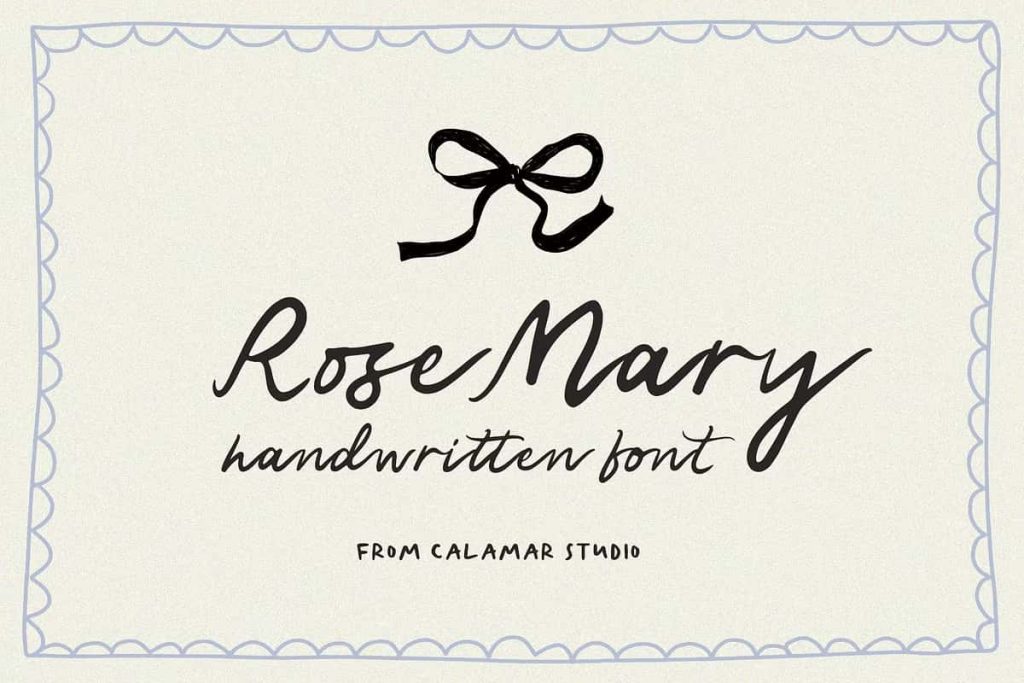
Rose Mary Handwritten Wedding Font
Rose Mary is a charming handwritten font designed to bring elegance, warmth, and personality to modern design projects. Introduced by Calamar Studio, this beautiful typeface captures the natural flow of handwritten lettering while maintaining a stylish and contemporary appearance. Its casual yet refined style makes it an ideal choice for wedding invitations, romantic branding, and creative typography projects.
The font reflects the growing trend of personal and expressive typography within wedding and lifestyle design. With its smooth strokes and naturally flowing letterforms, Rose Mary delivers the perfect balance between sophistication and casual charm. Designers looking for typography that feels genuine and heartfelt will find Rose Mary to be an excellent addition to their creative toolkit.
As the 2024–2025 wedding season approaches, many designers and couples are searching for fonts that communicate romance and individuality. Rose Mary answers that demand with a design that feels intimate, elegant, and visually captivating.
A Perfect Font for the 2024–2025 Wedding Season
Wedding design continues to evolve each year, and typography plays a central role in shaping the overall visual atmosphere of invitations and event materials. Rose Mary was created specifically to match the modern aesthetic of contemporary weddings. The font brings a sense of authenticity and beauty that aligns perfectly with romantic celebrations.
Couples today often prefer personalized design elements that reflect their story and style. Handwritten fonts like Rose Mary help achieve this goal by introducing a natural and emotional tone that printed typefaces sometimes lack.
Whether used in invitations, save-the-date cards, wedding signage, or reception menus, the Rose Mary font adds a soft and elegant touch that enhances the entire design experience.
Romantic and Elegant Letterforms
The flowing strokes of Rose Mary create graceful typography that feels light and expressive. Each letter connects naturally, forming words that resemble carefully written calligraphy. This elegant structure allows the font to communicate romance without appearing overly formal.
The result is typography that feels approachable, stylish, and beautifully suited for wedding design.
Casual, Trendy, and Stunning
Rose Mary stands out because it blends three important qualities: casual charm, modern trends, and stunning visual beauty. Many handwritten fonts focus heavily on decorative flourishes, but Rose Mary maintains a clean and balanced style that remains readable and versatile.
The casual nature of the font gives it a friendly and inviting personality. At the same time, the modern design ensures that it fits seamlessly within contemporary graphic design trends.
Designers who want to create elegant typography without sacrificing simplicity will appreciate the thoughtful design of Rose Mary. Its stylish curves and smooth connections allow text to flow effortlessly across invitations, logos, and decorative typography layouts.
Modern Handwritten Style
The handwritten appearance of Rose Mary feels authentic rather than artificial. Each letter reflects the subtle movement and rhythm of natural handwriting. This quality helps designers create visuals that feel personal and emotionally engaging.
In many projects, typography serves as more than just text—it becomes a key visual element. Rose Mary excels in this role by delivering both readability and artistic charm.
Designed to Pair with Whimsical Love Collection
Rose Mary works beautifully as a standalone font, but it truly shines when combined with the Whimsical Love collection. This pairing allows designers to create cohesive wedding design systems that feel balanced and visually harmonious.
The soft curves and romantic tone of Rose Mary complement the decorative elements often found within the Whimsical Love design collection. Together, they form a creative toolkit that supports a wide variety of wedding-themed graphics.
Designers can use this combination to build elegant invitations, romantic branding materials, and beautiful event decorations that share a consistent aesthetic.
Create Cohesive Wedding Designs
Combining Rose Mary with supporting design elements allows creators to build complete visual stories. From invitation suites to signage and social media graphics, the font adapts easily while maintaining its romantic character.
This flexibility makes it an excellent choice for professional designers and DIY creators alike.
Ideal for Creative and Romantic Projects
Although Rose Mary was designed with weddings in mind, its versatility extends far beyond invitation design. The font performs well in many creative contexts where warmth, elegance, and personality are important.
Its handwritten style works particularly well in lifestyle branding, personal projects, and social media content where authenticity and emotional connection matter.
By combining contemporary design trends with authentic handwritten charm, Rose Mary allows designers to create typography that feels personal, stylish, and visually engaging. Whether used in wedding invitations, branding, or creative digital content, the font delivers a memorable visual experience.
For anyone seeking a beautiful handwritten typeface that expresses warmth and elegance, Rose Mary stands as a stunning and versatile choice for modern design projects.